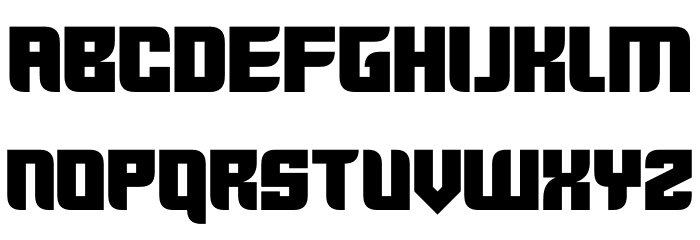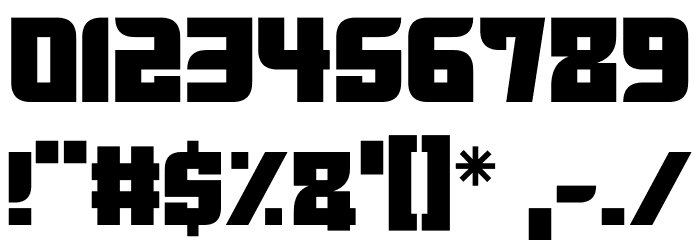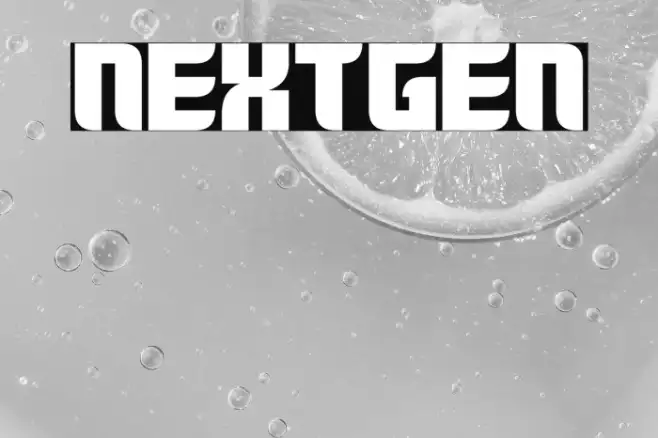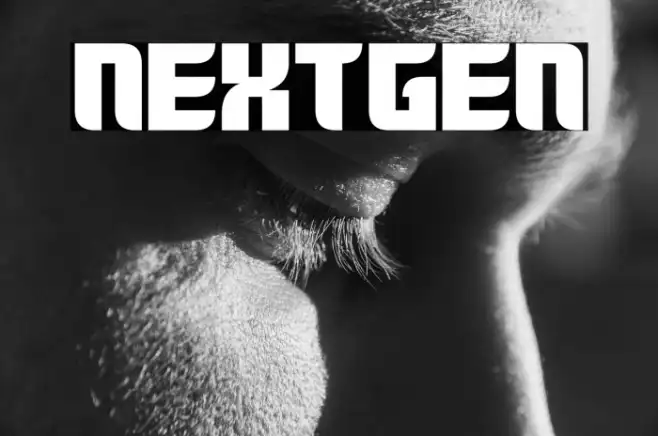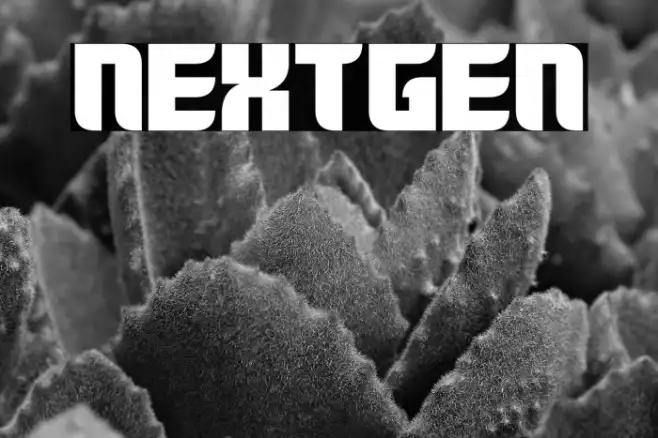
Nextgen Font
This font features a bold, geometric design with a strong presence. The characters are uniformly thick, creating a sense of stability and strength. The uppercase letters are blocky and angular, while the lowercase letters maintain a similar structure, ensuring consistency across the typeface. The numbers are equally bold and match the style of the letters, making them easily legible. Special characters are designed to fit seamlessly with the overall aesthetic, maintaining the bold and geometric theme. This font is ideal for projects that require a modern and impactful look.
A bold, geometric font with a strong, modern presence.
- Proposed Projects: Ideal for branding, posters, headlines, and any design requiring a bold statement.